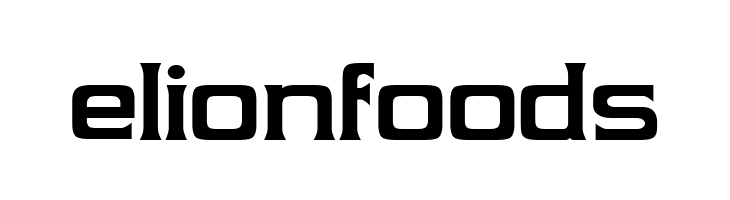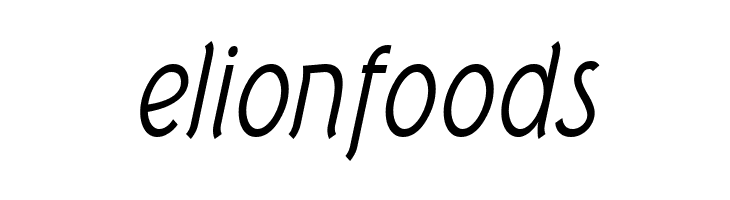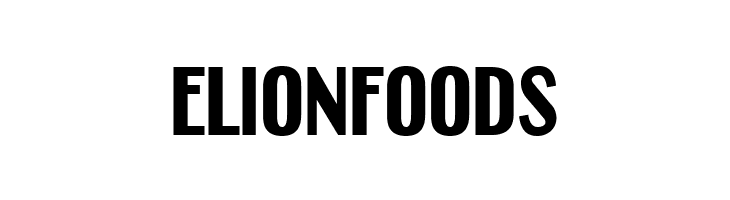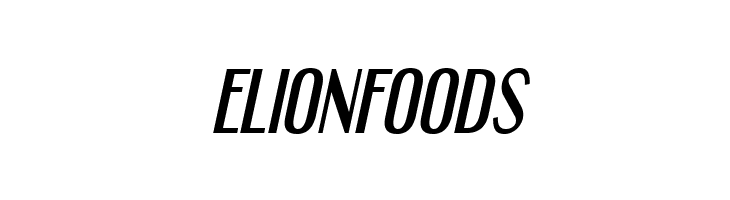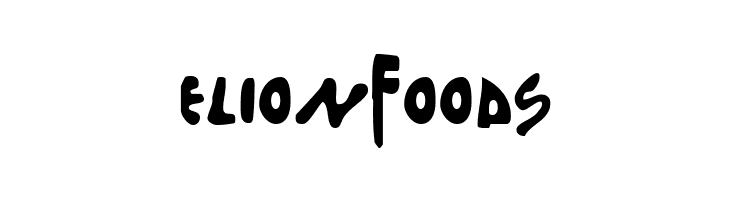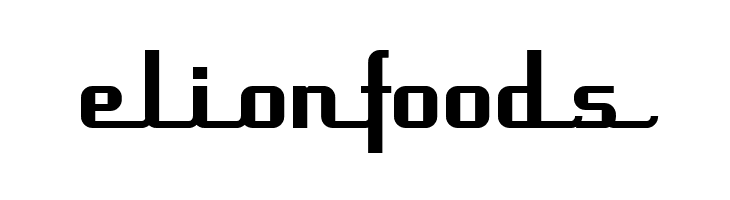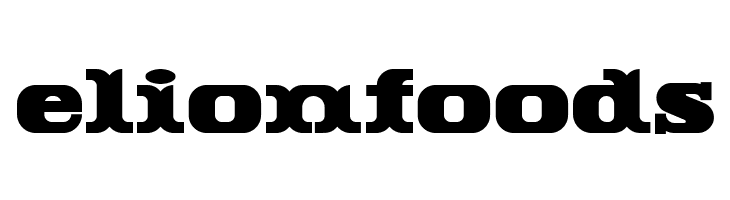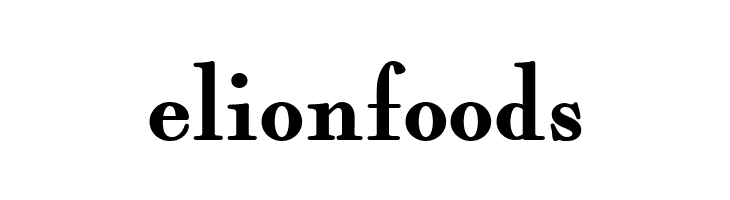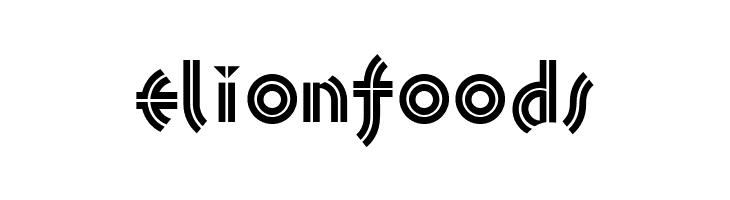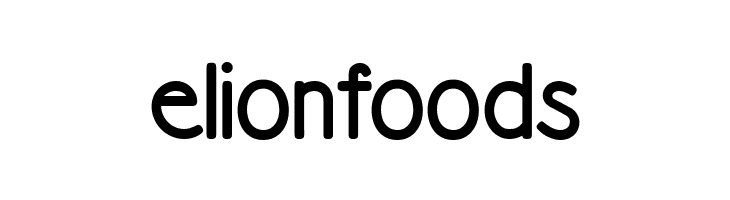
A bold, playful font with a three-dimensional, geometric design.
A bold, geometric font with Art Deco influences and high contrast.
A bold, geometric font with a vintage poster style and modern appeal.
A bold, modern font with high contrast and elegant curves.
A bold, geometric font with high contrast and modern appeal.
A bold, geometric font with sharp angles and unique cutouts.
A bold, geometric font with inline detailing for a striking visual impact.
A bold, high-contrast decorative font with geometric and elegant elements.
A bold, decorative font with geometric elements and high contrast strokes.
A bold, outlined serif font with a modern twist, perfect for eye-catching headlines.
A classic serif font with elegant and refined letterforms, offering a timeless look.
A bold, dynamic font with angular cuts and a playful, adventurous style.
A bold, geometric font with intricate spiral patterns and a decorative style.
A bold, geometric font with sharp angles and smooth curves, perfect for modern designs.
A bold, decorative font with a strong, three-dimensional appearance.
A bold, playful font with rounded, bulbous shapes and a whimsical design.
A bold, Art Deco-inspired font with high contrast and elegant, narrow forms.
A bold, geometric font with a modern and assertive style.
A bold, geometric font with dramatic, decorative elements.
A bold, decorative font with a shadow effect for a three-dimensional look.
A tall, narrow font with high contrast and modern elegance.
A bold, geometric font with angular and circular elements, perfect for striking designs.
A bold, geometric font with sharp angles and clean lines, perfect for striking headlines.
A geometric serif font with angular serifs and a modern-retro aesthetic.
A bold, decorative font with intricate geometric patterns.
A bold, geometric font with high contrast and playful retro elements.
A bold, decorative font with ornate serifs and intricate details.
A bold, geometric font with a 3D effect and industrial style.
A playful and whimsical font with bold, rounded letterforms and a quirky aesthetic.
A decorative serif font with intricate swirls and classic elegance.
A bold, geometric font with Art Deco influences, perfect for stylish and sophisticated designs.
A bold, geometric font with retro and art deco influences.
A bold, decorative font with tribal patterns and geometric shapes.
A bold, geometric font with Art Deco influences and a futuristic style.